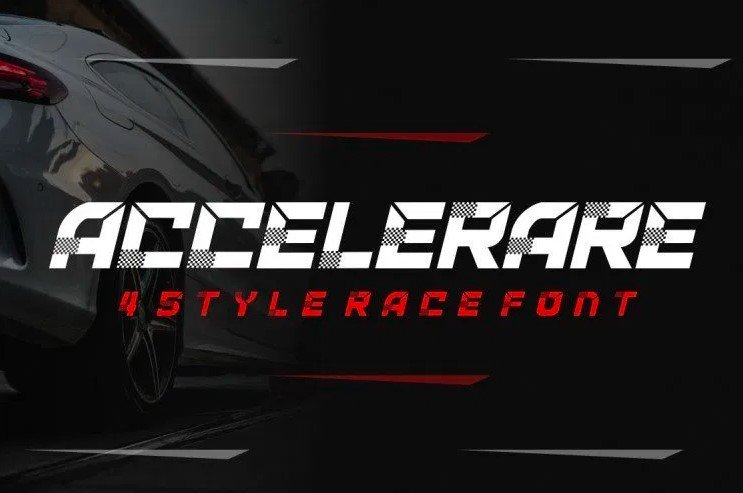
Hello talented designers, we're excited to introduce you to the highly attractive Accelerare Font. This modern and cutting-edge sans serif typeface features a racing speed car motor theme, making it ideal for large display designs.
Of course you can use the Accelerare for your logo as well as all other graphic designs projects.